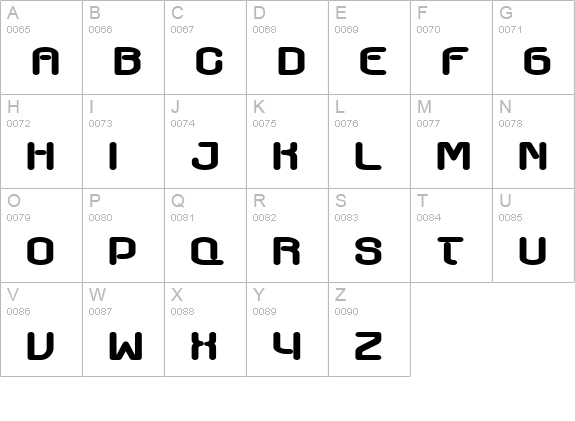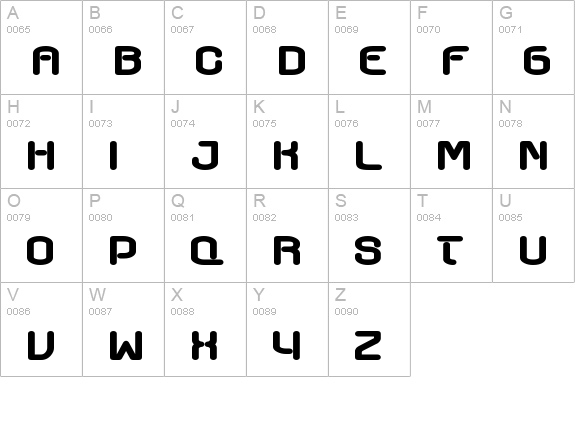
Axaxax regular is the standard, neutral variant in the Axaxax typeface family \xE2\x80\x94 well suited to general body text, paragraphs, and standard typographic work.
Axaxax regular font is a modern and stylish typeface that combines elegance with simplicity. With its clean lines and smooth curves, this font is perfect for a wide range of design projects, from branding to editorial design. The versatility of Axaxax regular font makes it suitable for both digital and print applications, adding a touch of sophistication to any project. The best part is that Axaxax regular font is available for free download at FontsMarket.com. This means you can easily access this high-quality font without any cost, making it a valuable addition to your font library. Don't miss out on the opportunity to enhance your designs with the sleek and contemporary Axaxax regular font - download it today and elevate your creative projects to the next level.